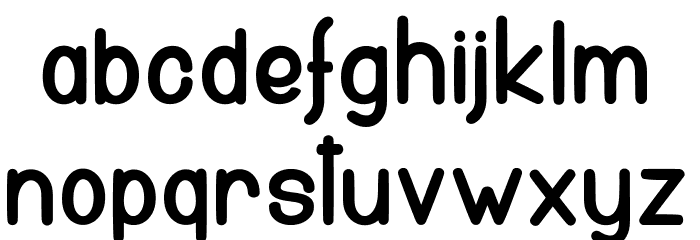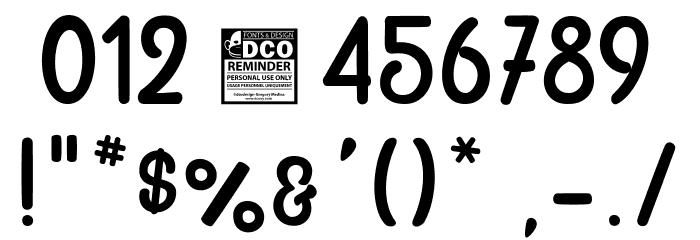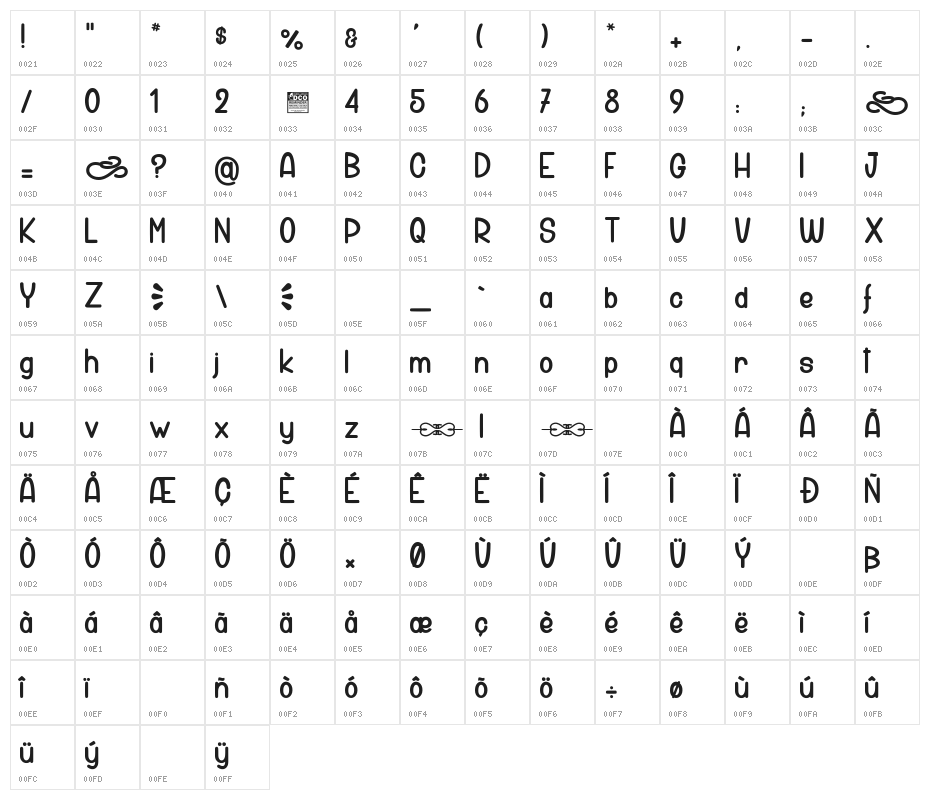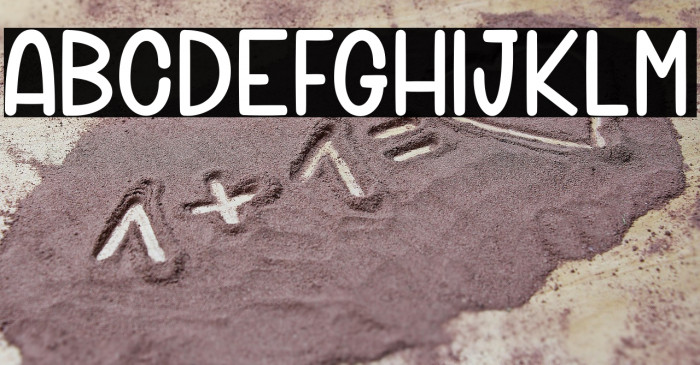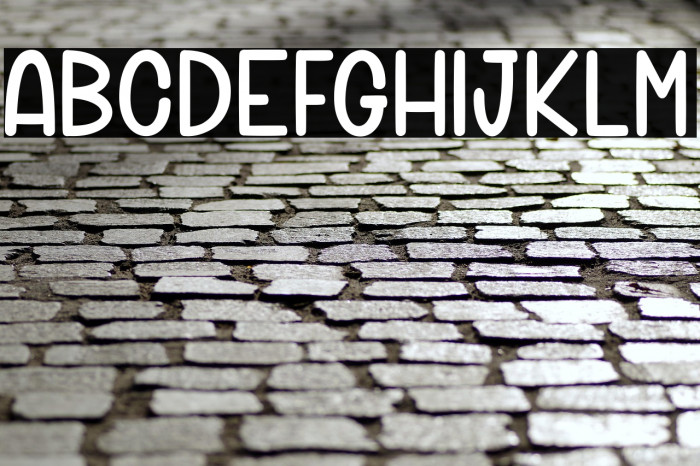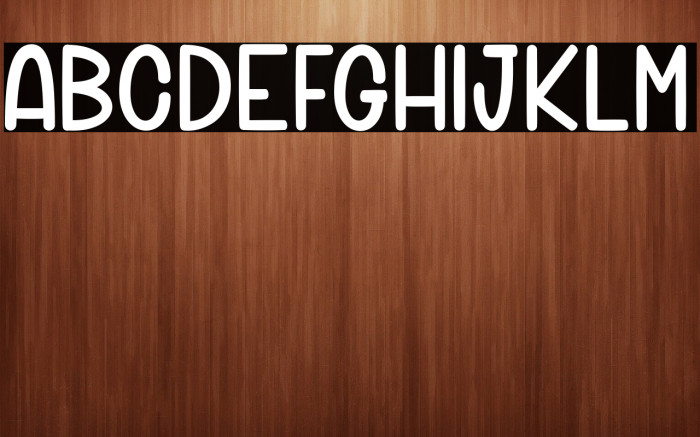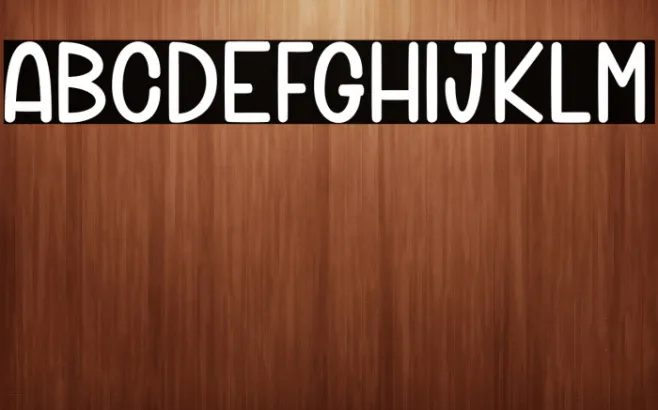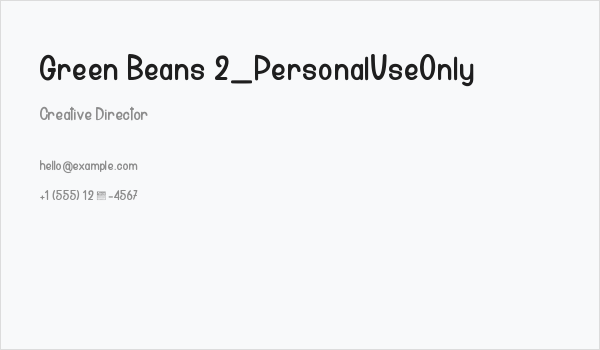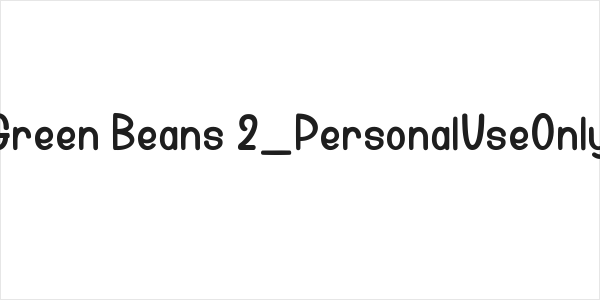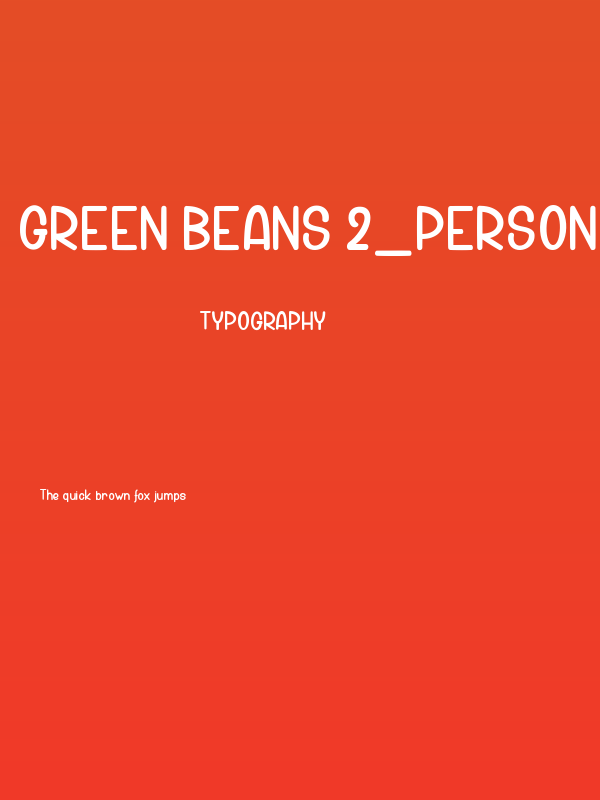
Green Beans 2_PersonalUseOnly Font
This playful and rounded font features a friendly and approachable style, characterized by its smooth curves and consistent stroke width. The uppercase and lowercase letters maintain a uniform appearance, with slightly exaggerated curves that give it a whimsical feel. The numerals and special characters follow the same design principles, ensuring a cohesive look across all glyphs. This font is ideal for projects that require a casual and inviting tone, such as children's books, playful branding, or informal invitations.
A playful, rounded font with smooth curves and a friendly style.
- Font: Green Beans 2_PersonalUseOnly
- Proposed Projects: Children's books, playful branding, informal invitations, greeting cards.
- Overall Style: Playful
- Use Case: Headlines, Logos, Informal Text